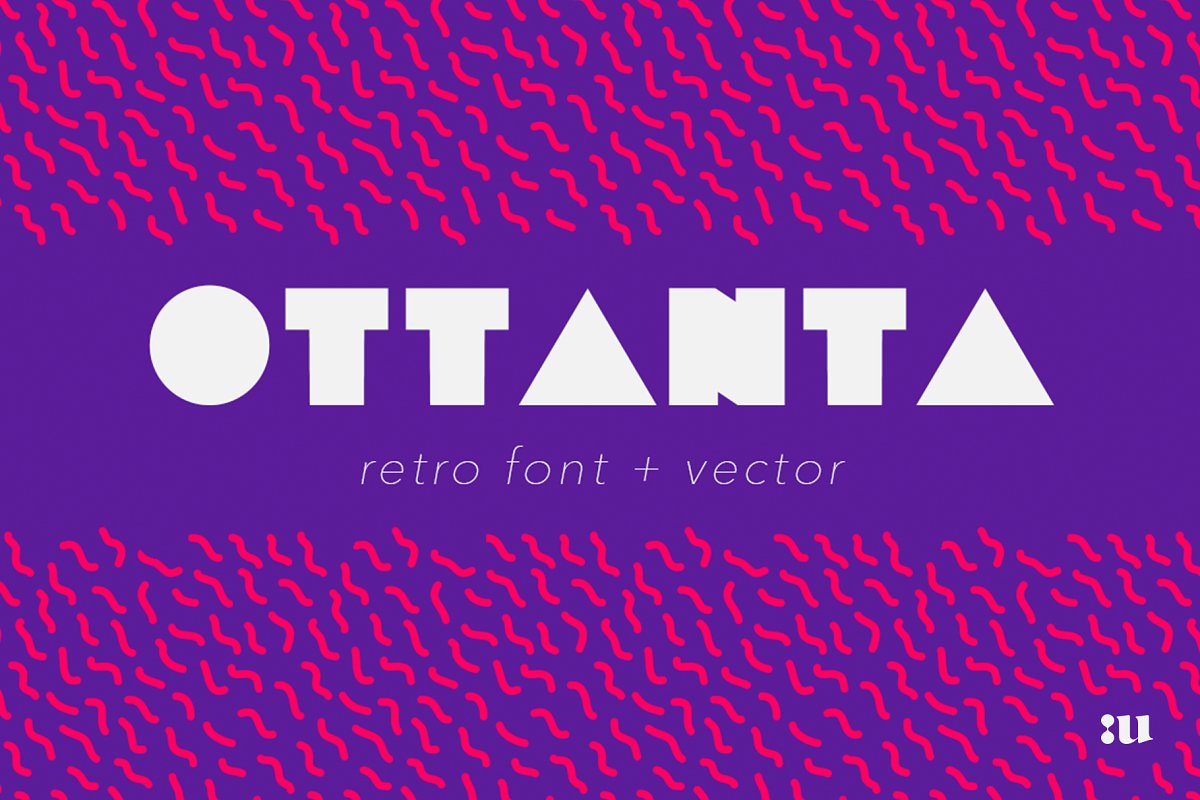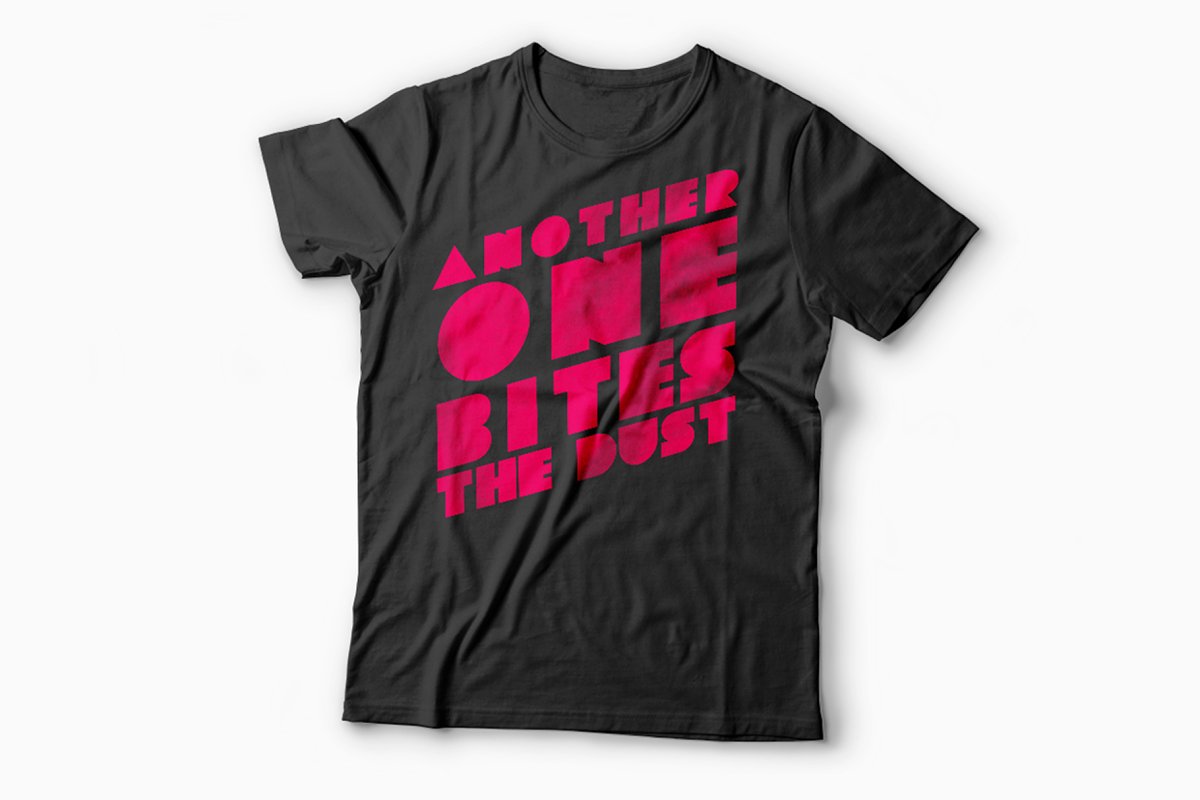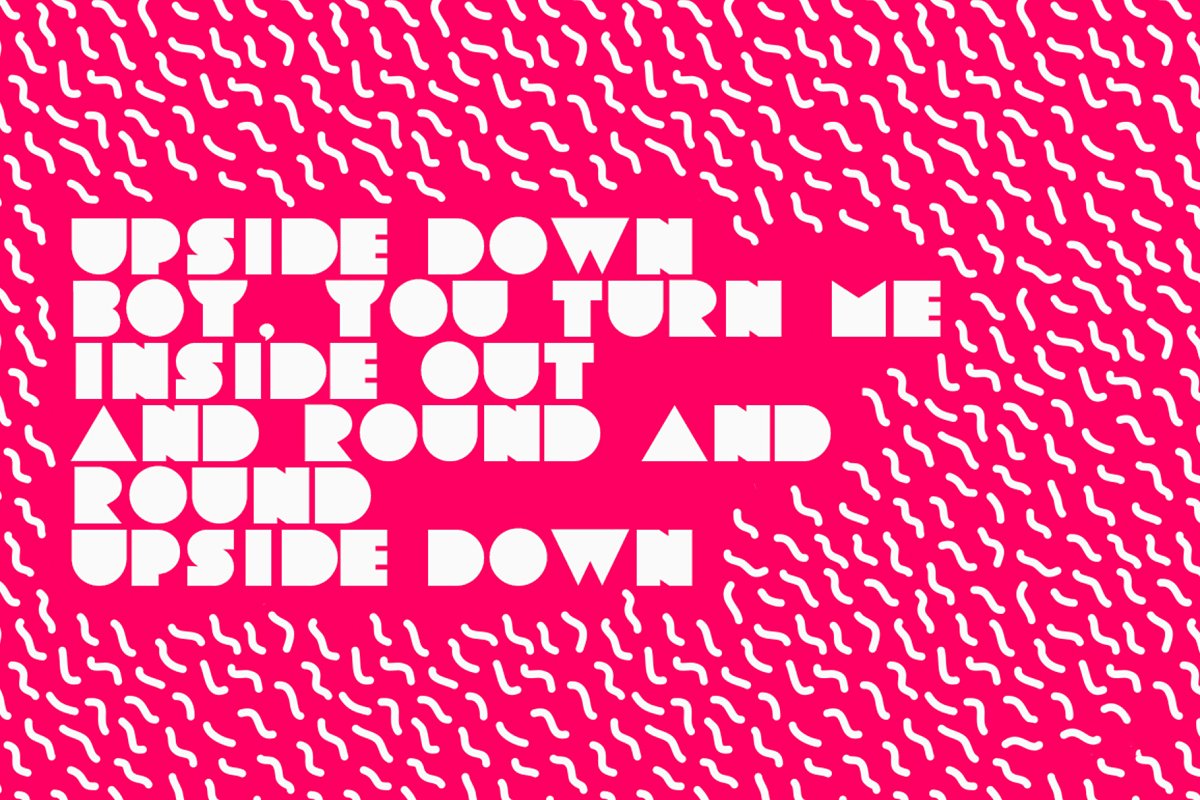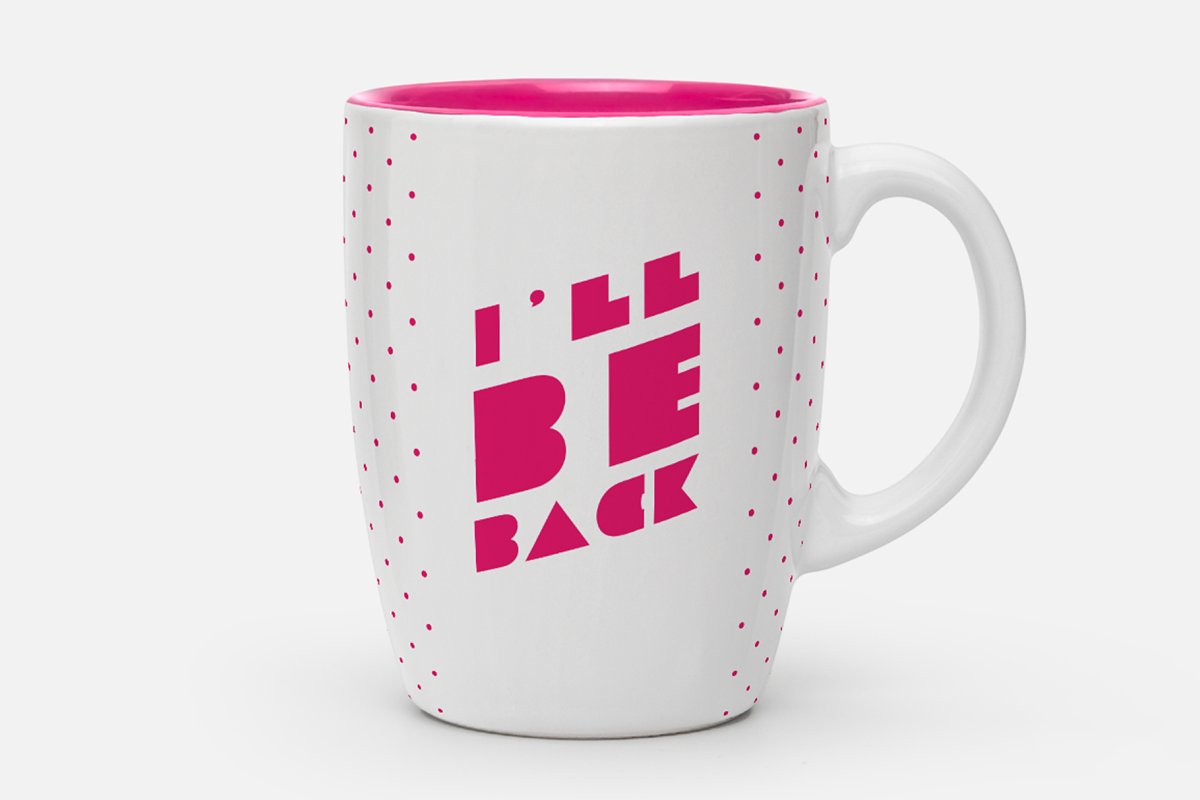
About the OTTANTA
BONUS RETRO PATTERN ADDED!!! Unio introduces “OTTANTA”, Feel nostalgic?OTTANTA recalls the “not-so-old” style of those past days, This wonderful font will add a touch of the eighties to your projects!Inspired by the typography showed on the glitchy commercials, magazines and movies of the ’80s, The 1980’s are still alive!!!Specifications:Format: , otf,